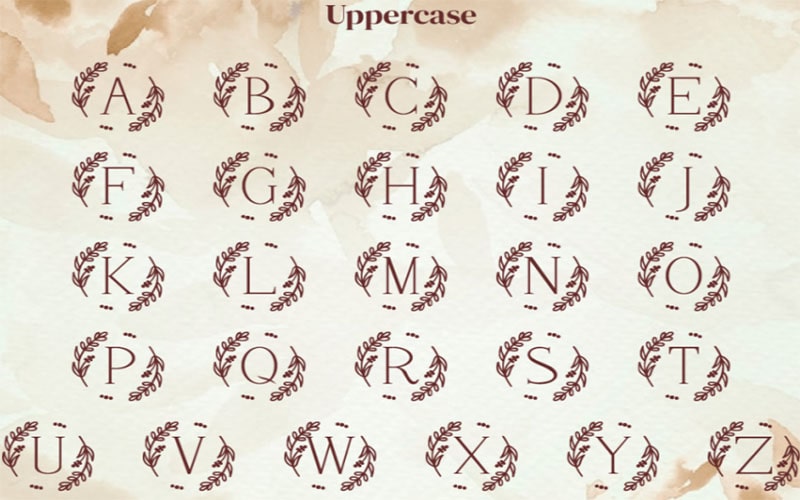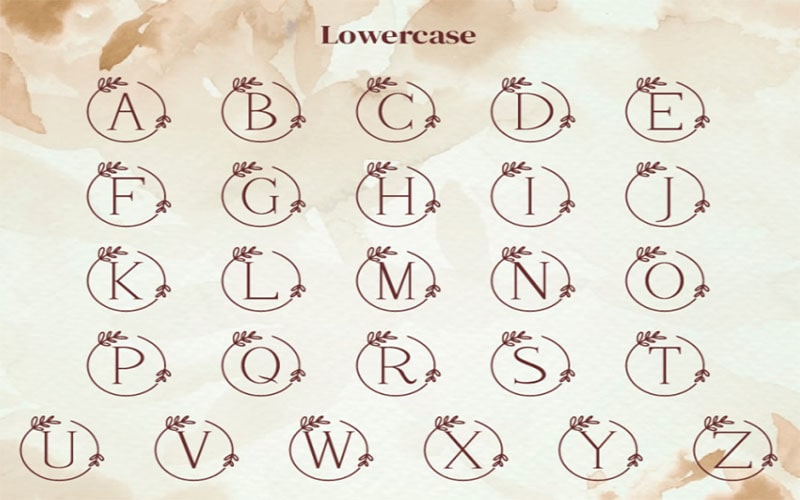
Nirmala Font is a unique and versatile typeface that seamlessly blends modern aesthetics with traditional design elements. Known for its wide range of applications.
This Font caters to a variety of design needs, making it a popular choice among designers and typographers. It was designed by the Letterayu Studio, specifically for use in the Windows operating system.
The typeface is part of Microsoft’s effort to support a wide range of languages and scripts, ensuring that users across the globe have access to high-quality, readable fonts.
It is available in several styles such as Nirmala regular, Nirmala bold, and Nirmala italic, each designed to enhance readability and visual appeal across different applications.
Nirmala Font
| Style: | Basic, Sans-serif, Typeface |
| Font Designer: | Letterayu Studio |
The standard style provides emphasis and impact, ideal for headlines, subheadings, and important text. Adds a dynamic slant, perfect for emphasis, quotes, and stylistic variations.
The unique styles make Nirmala Font highly versatile and suitable for a variety of uses like Web Design, Print Media, Corporate Communication, User Interfaces, and Multilingual Projects.
Enhance your design projects with the versatile and modern Nirmala Font. You can achieve a sleek and contemporary look that resonates with today’s audiences.